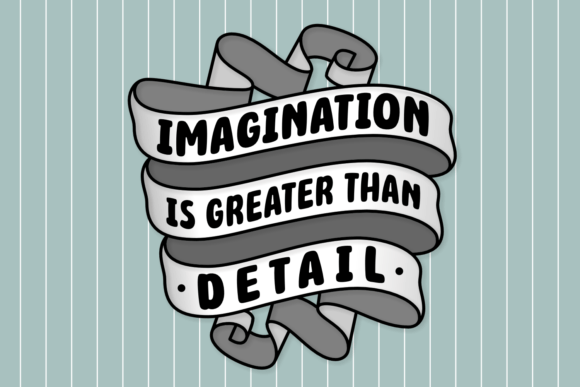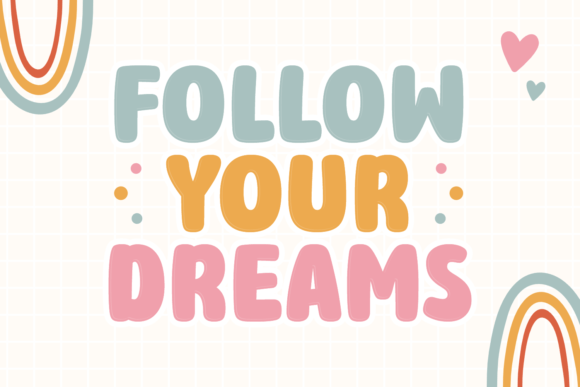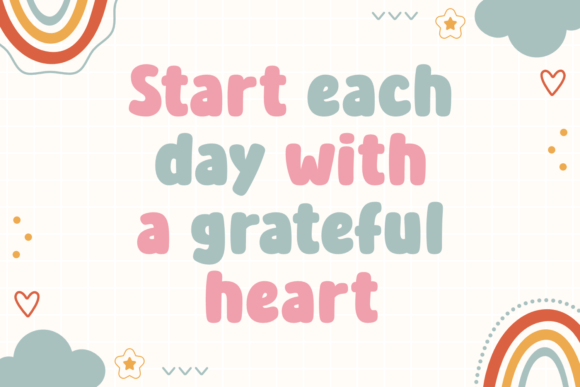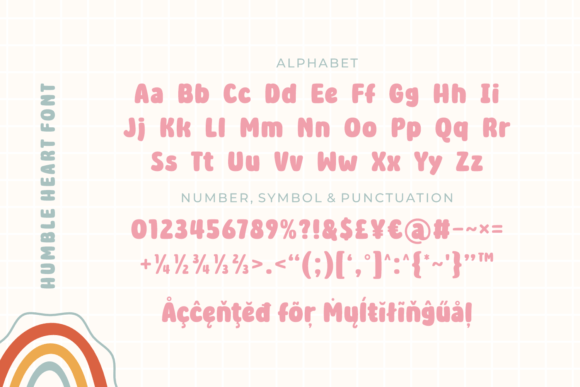
Introduction to Humble Heart Font
You’ve spent hours pouring your heart and soul into a creative project, perfecting every detail, and finally, it’s ready to be shared with the world. But then comes the moment of truth – the presentation. You need a font that will elevate your design, capture attention, and leave a lasting impression. This is where the Humble Heart Font steps in, a game-changing display font that will take your creative endeavors to the next level.
This high-quality font is more than just a design resource; it’s a powerful tool that will help you convey your message with confidence and style. With its bold yet sophisticated personality, Humble Heart Font is perfect for creating captivating headlines, attention-grabbing posters, and diverse display elements that demand attention. And the best part? It’s available for free download, making it an accessible and transparent background for your design needs.
Key Features of Humble Heart Font
- High-quality, elegant design perfect for creative projects, such as wedding invitations, greeting cards, and more.
- Designed with a clean and minimalist aesthetic, the Humble Heart Font is ideal for both digital and print projects.
- Features a large character set, including uppercase and lowercase letters, numbers, and punctuation marks.
Honest Review: Humble Heart Font
As a designer, I’m always on the lookout for high-quality design resources to elevate my creative projects. The Humble Heart Font caught my eye with its unique, handwritten feel that’s perfect for adding a touch of personality to my designs.
- ✨ Unique, handwritten feel that adds personality to designs
However, I do have a few limitations to note. The font is not as robust as some other options, and it may not be suitable for large blocks of text. Additionally, some users may find the font’s quirky feel to be inconsistent.
- ⚠️ Not suitable for large blocks of text due to font’s quirky feel
- ⚠️ Font may appear inconsistent in certain contexts
Overall, I’d recommend the Humble Heart Font for designers looking to add a touch of personality to their creative projects. While it has its limitations, it’s a high-quality resource that’s worth exploring.
Experiment with different font sizes, colors, and styles to achieve the desired look. Use the Humble Heart Font in combination with other design elements to create visually appealing designs.
The Humble Heart Font is ideal for creating designs for social media, marketing materials, and branding. Its high-quality design makes it a valuable resource for any creative project.
What is the recommended usage for the Humble Heart Font?
The Humble Heart Font is designed for use in a variety of creative projects, including logos, branding, and typography-based designs. It’s perfect for adding a touch of elegance and sophistication to your design. We recommend using the font in conjunction with other high-quality design elements to create a cohesive and visually appealing design.